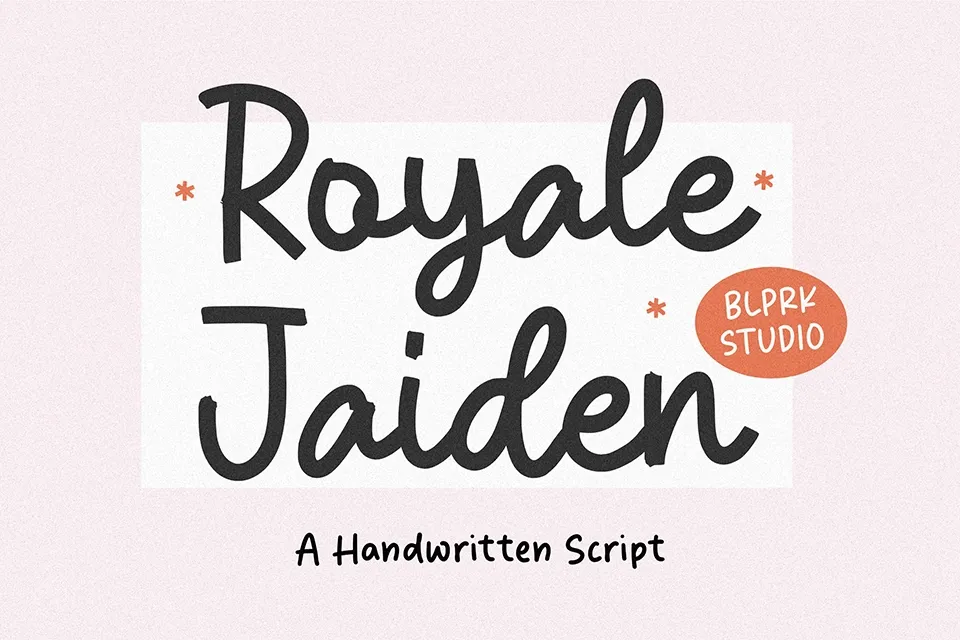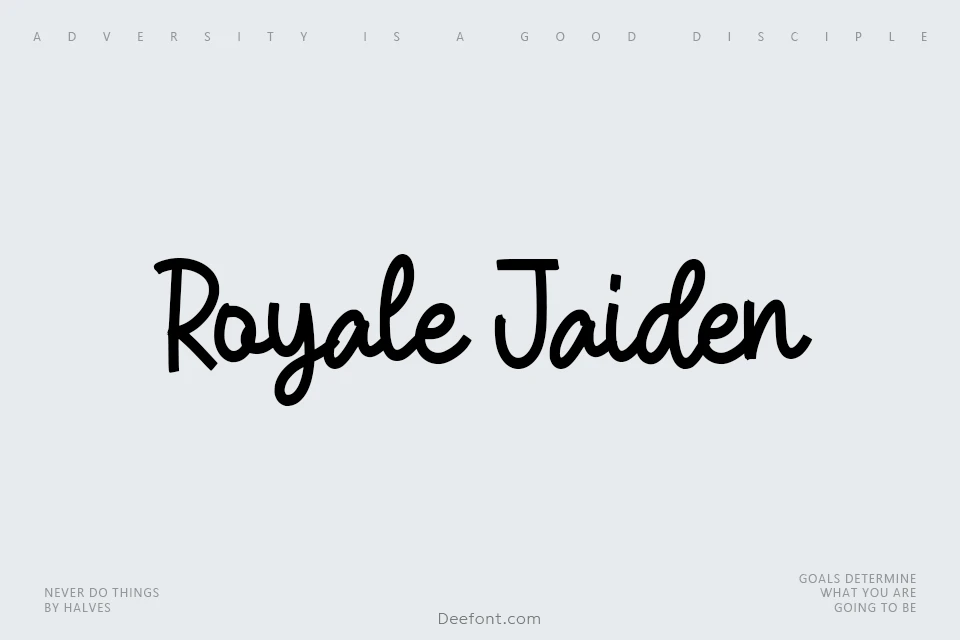
Royale Jaiden Font
Royale Jaiden Font is a charming monoline handwritten script font that brings a touch of grace and timeless beauty to any project. Each stroke is meticulously crafted to create an enchanting script that is both fluid and delicate. This font is suitable for various occasions and purposes, effortlessly elevating invitations, stationery, branding, and digital designs to new heights. Royale Jaiden evokes sophistication and simplicity, making it a versatile choice for adding a personal and elegant touch to your creative work.